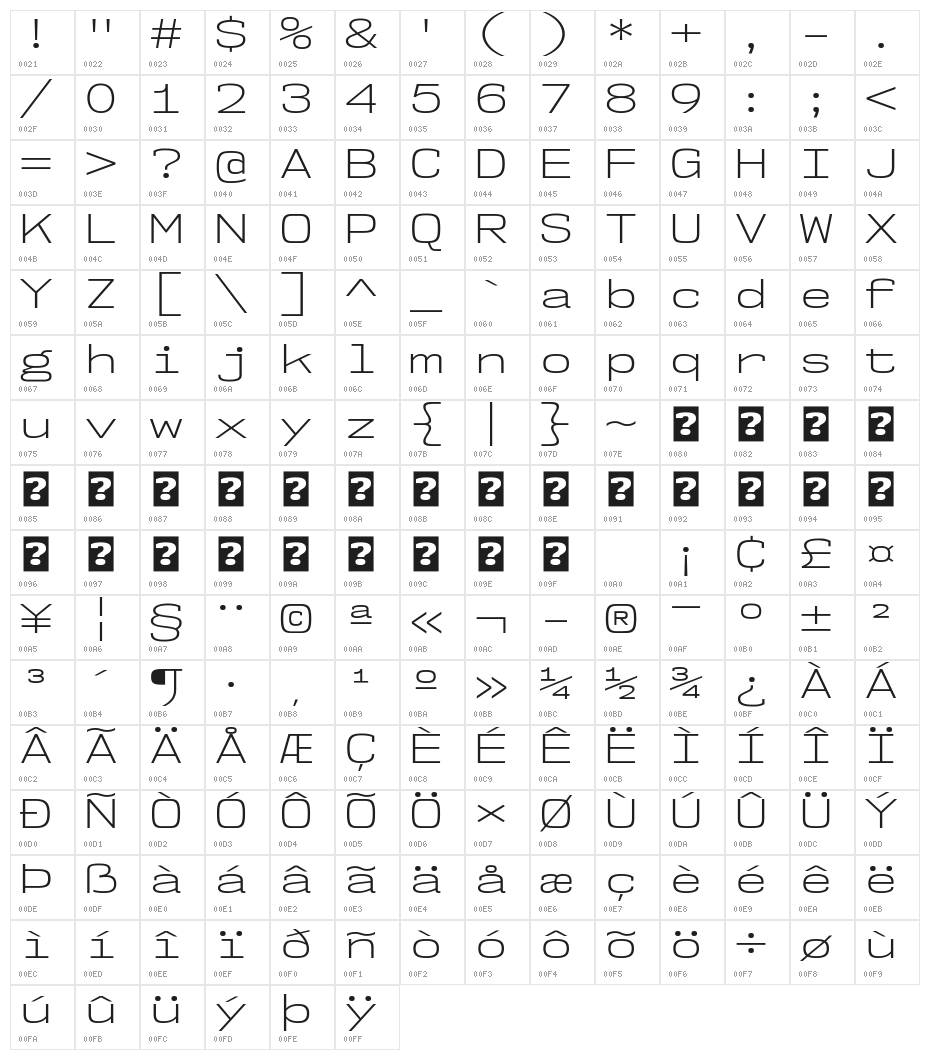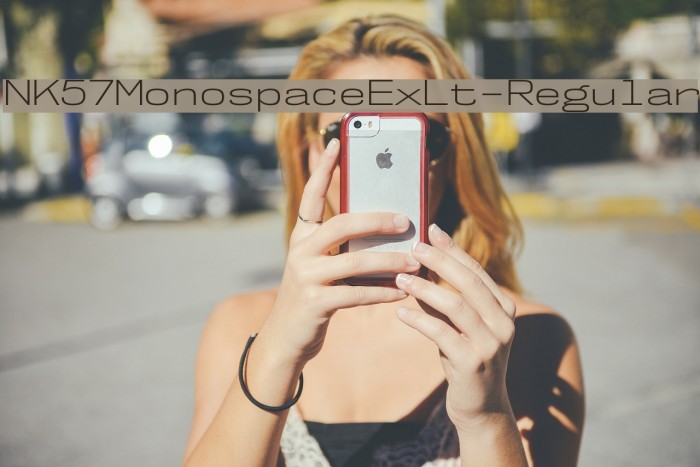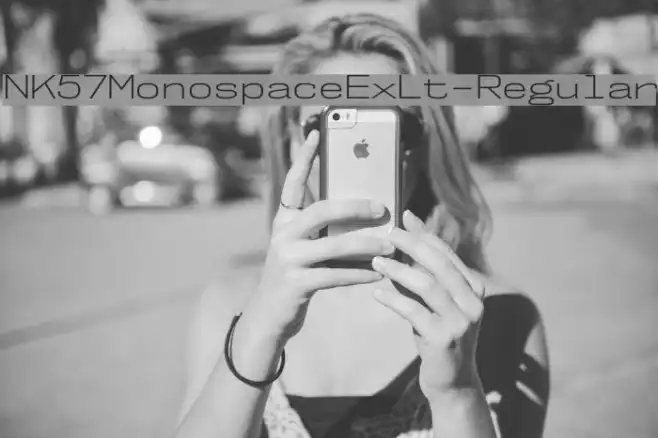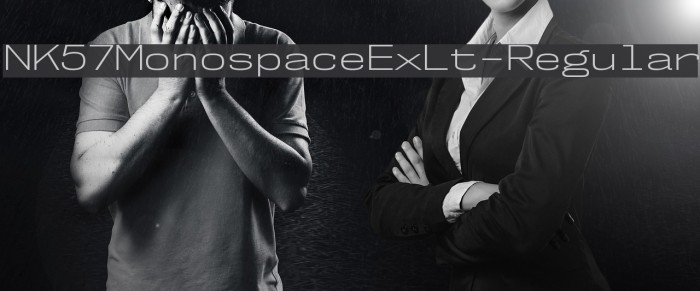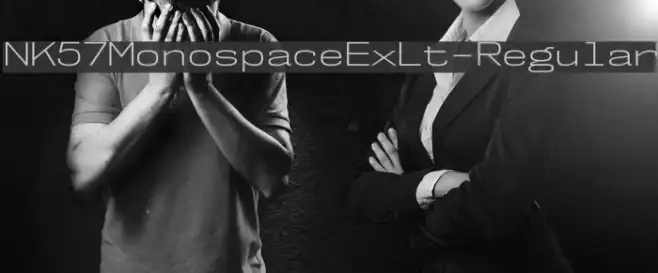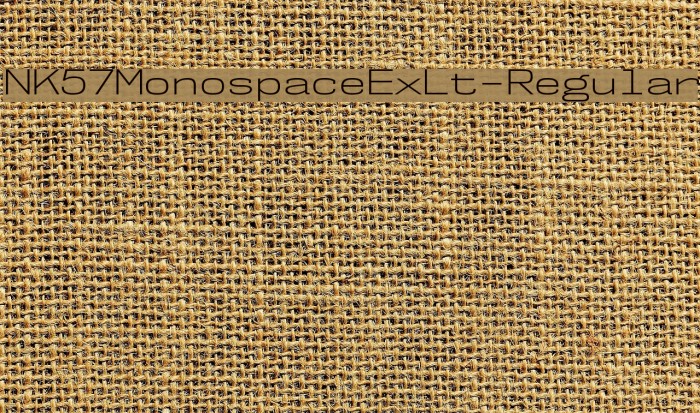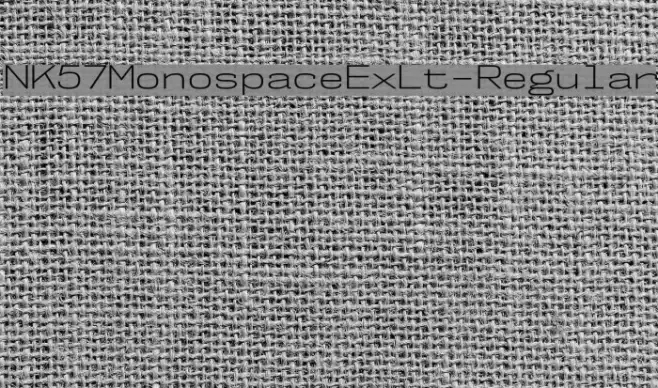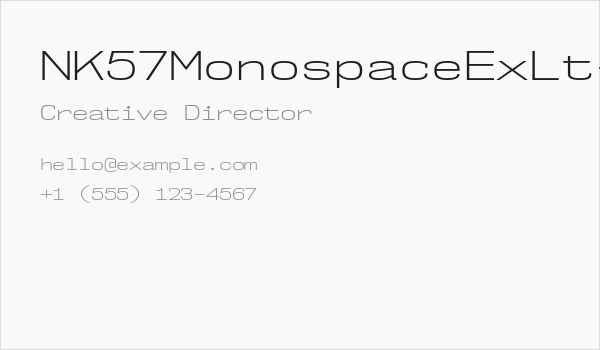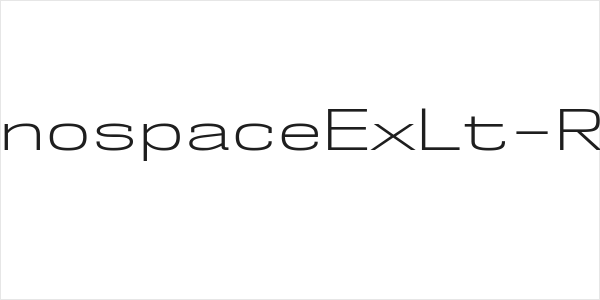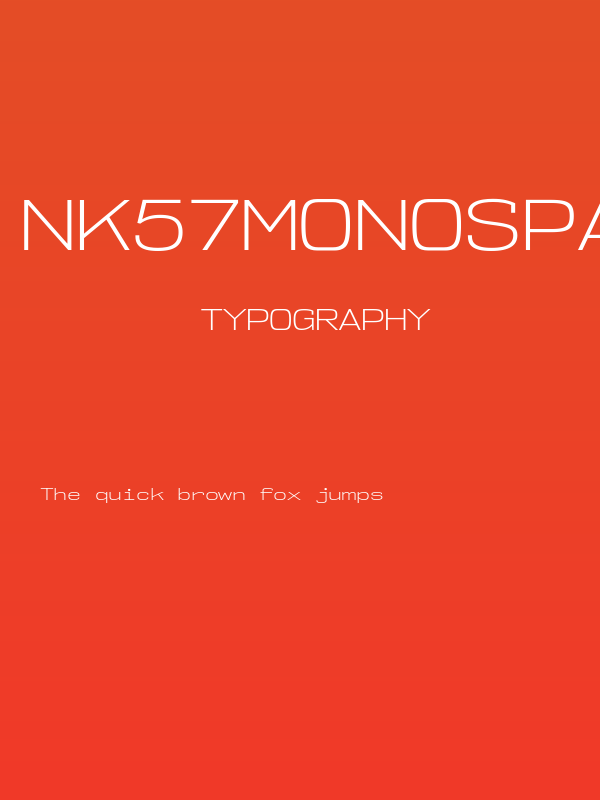
NK57MonospaceExLt-Regular Font
NK57MonospaceExLt-Regular Description
This font features a clean, modern design with a monospaced structure, ensuring each character occupies the same amount of horizontal space. The strokes are uniform and consistent, providing a balanced and harmonious appearance. The characters are well-defined with a slight geometric influence, offering a contemporary and technical feel. The font maintains clarity and legibility across all sizes, making it suitable for both digital and print media. Its simplicity and precision make it ideal for coding, technical documents, and any application where readability is paramount.
| Use Case | Coding, Technical documents, Digital interfaces |
| Proposed Projects | Ideal for coding environments, technical documentation, digital interfaces, and print media requiring clarity and precision. |